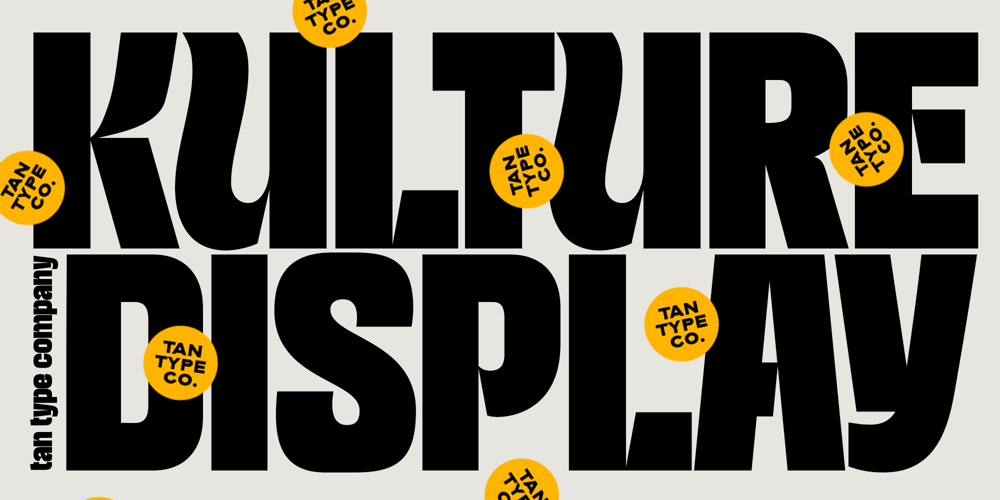
TAN KULTURE
TAN KULTURE font
TAN KULTURE Font Family was designed by Novia Jonatan and published by TANTypeCo.. TAN KULTURE contains 1 styles and family package options. TAN KULTURE is a bold display type. Simple in a good way and efficient with tight kernings making it a nice choice if you want a retro look in your design.